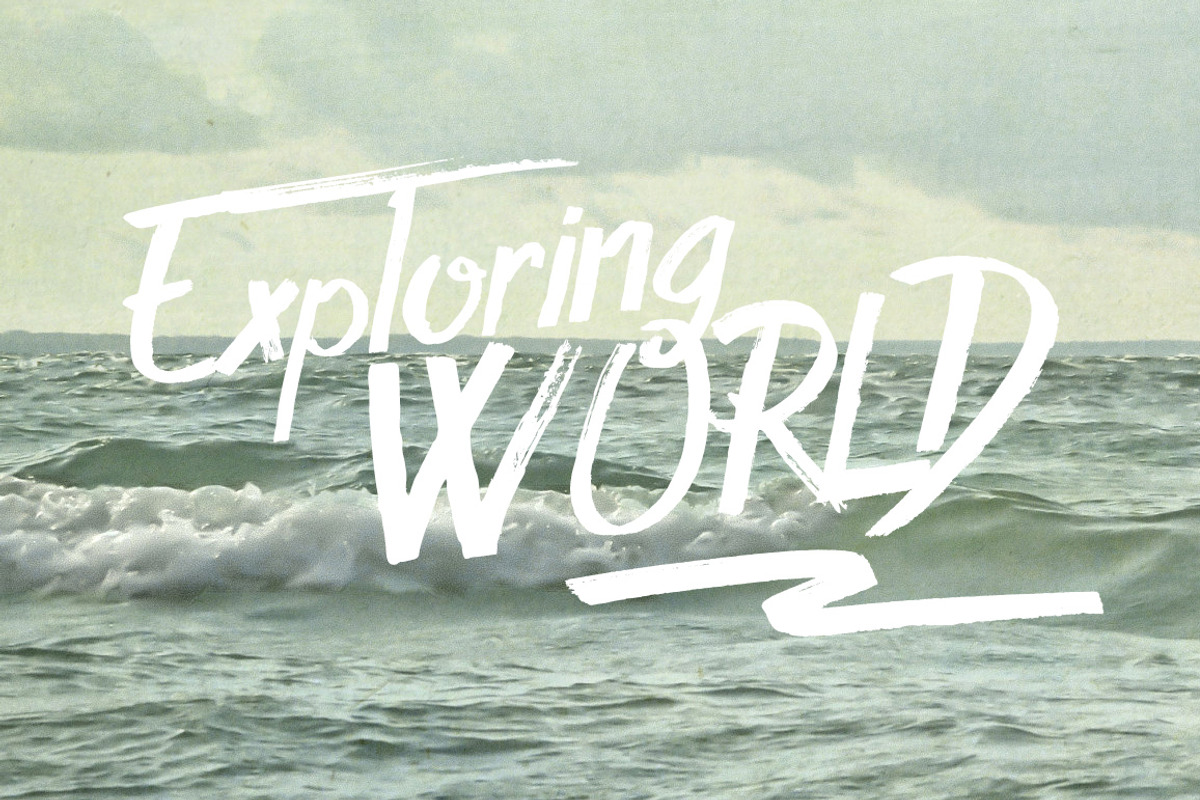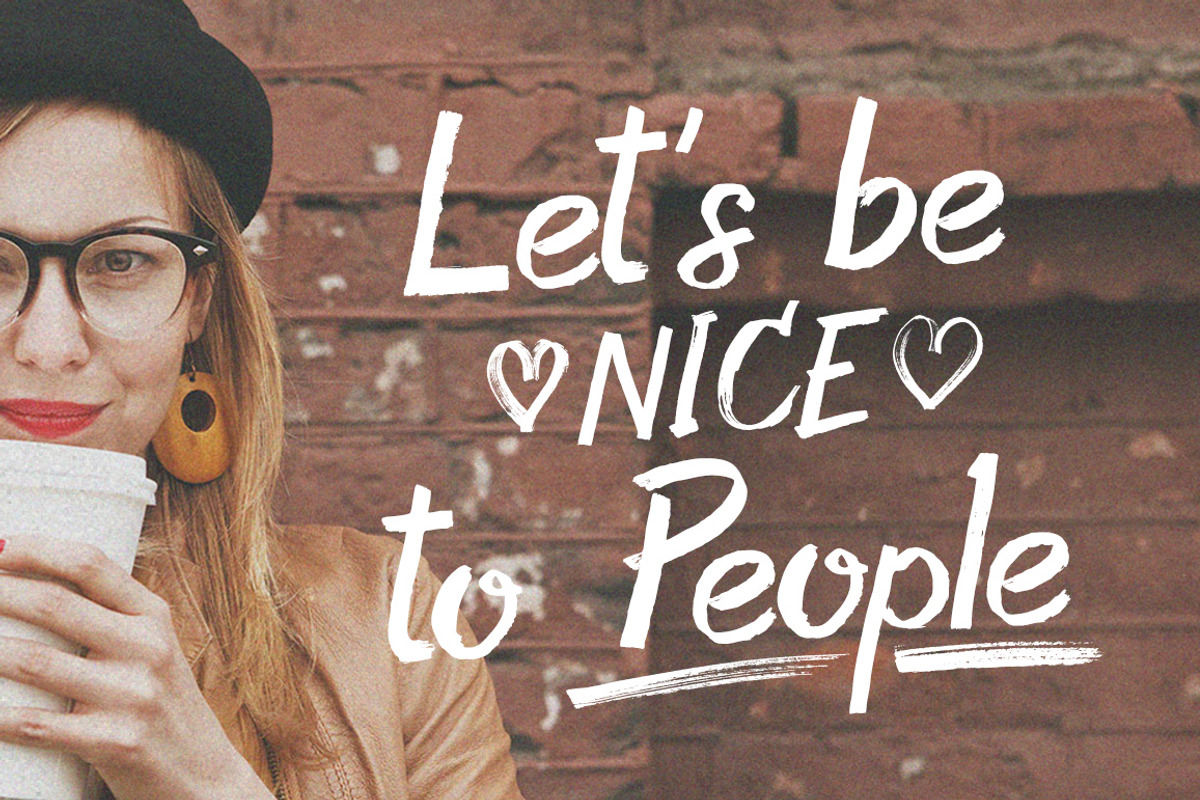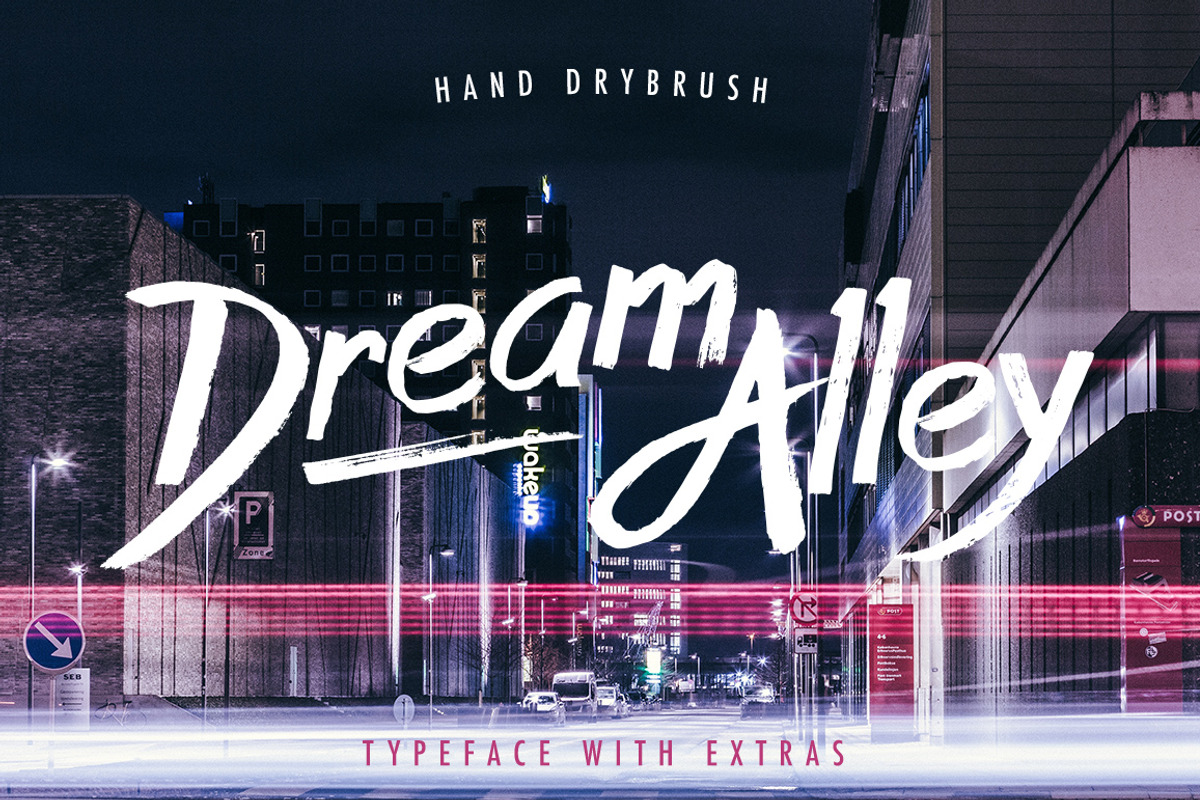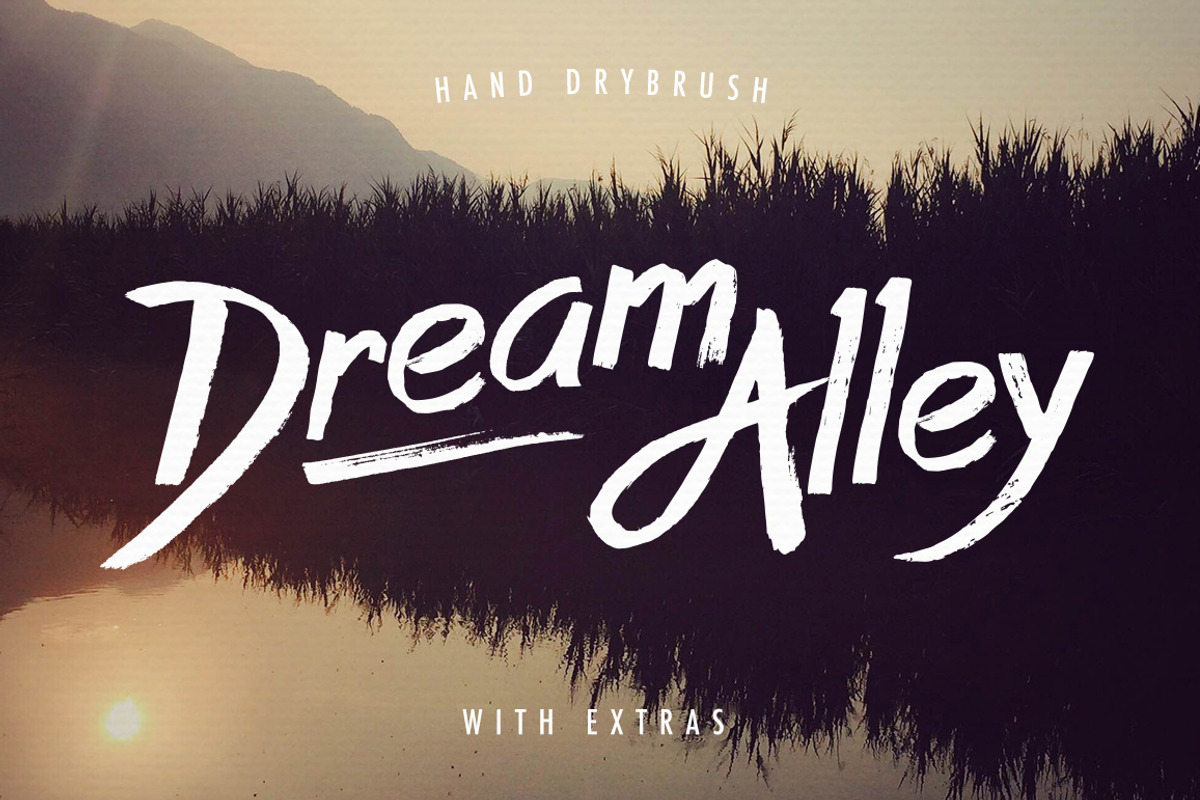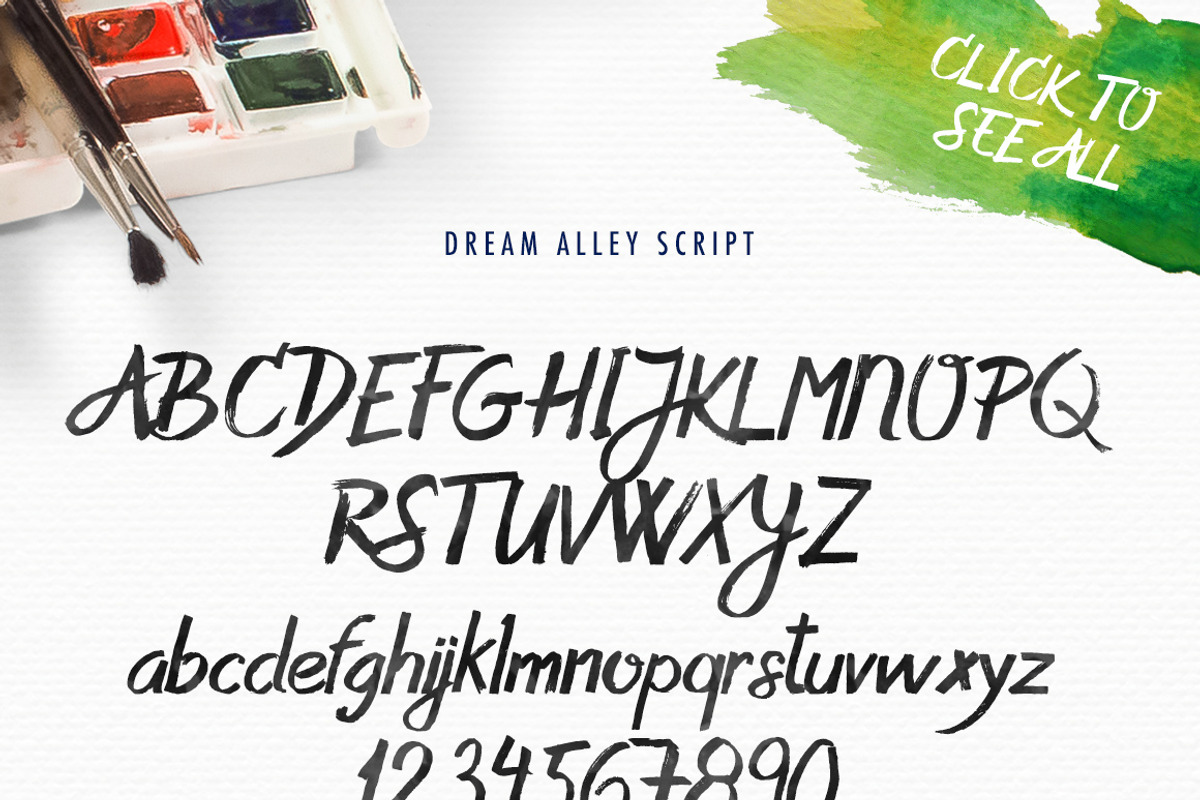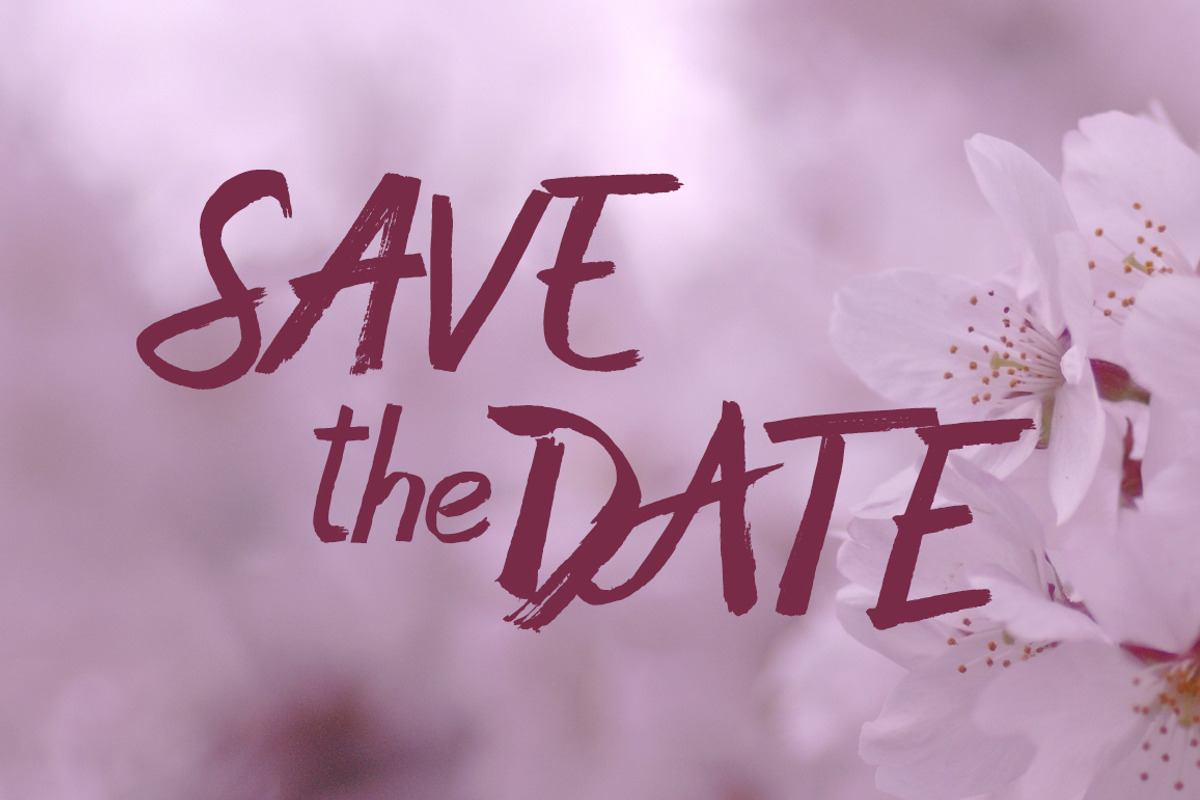
Dream Alley Font
Dream Alley Font by Rad Fonts is a font selected for branding, posters, packaging, typography.
- All capital letters have stylistic alternates.
- No problem - you can always switch to alternate letter that looks a little different but yet match the overall style.
Why Dream Alley Font is worth a look
Dream Alley Font by Rad Fonts fits naturally into Branding, posters, packaging, typography.